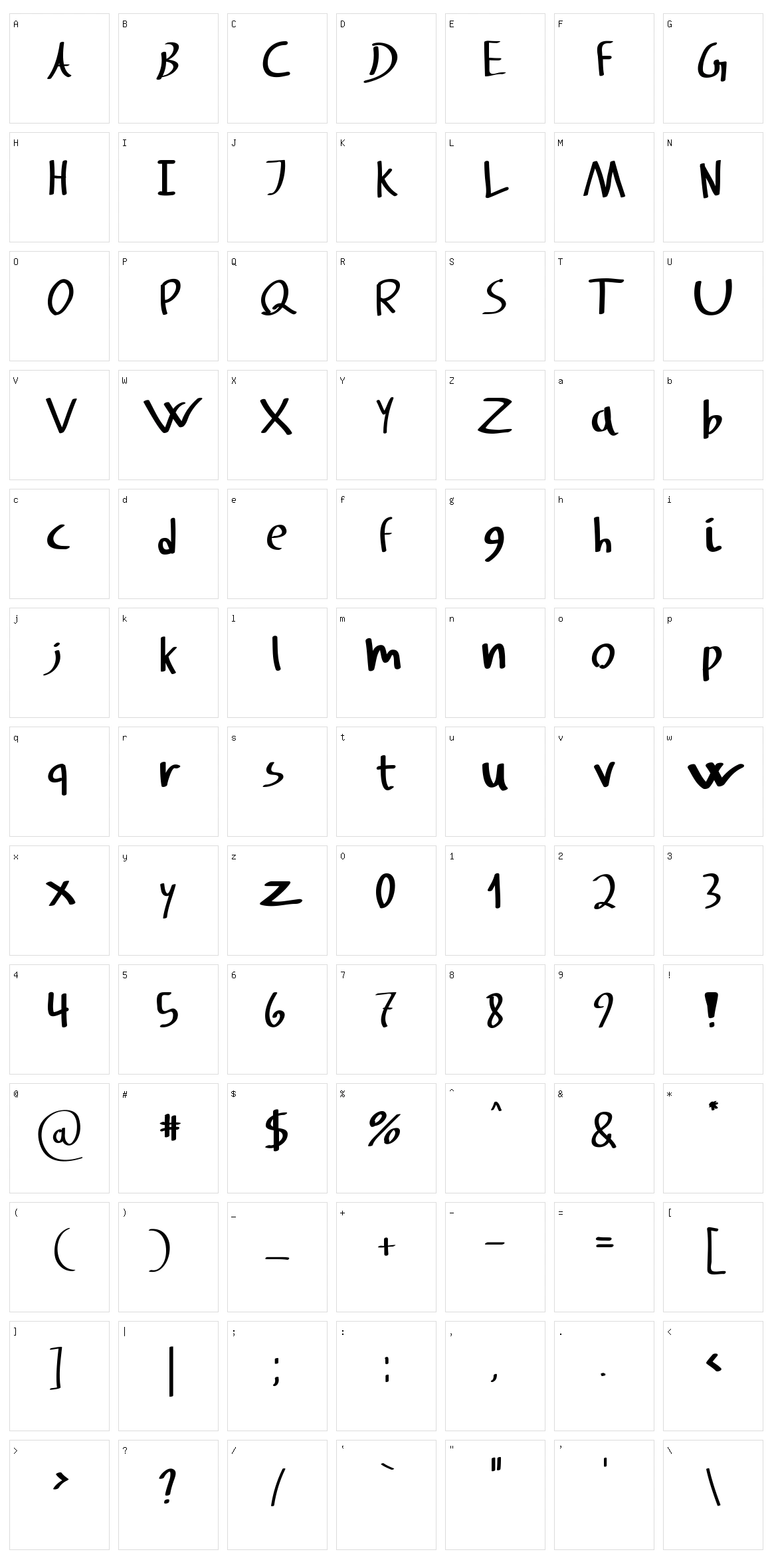
The free font Svampens Handwriting is carefully designed by Martin S?rensen, showcasing a thoughtful balance of creativity and usability and falls under the Script font style. When you download the ZIP file, it contains only 17.89 KB of font files, making it lightweight and quick to download. Please review the license details below to understand permitted usage and distribution rights. If license information is not available, we recommend using this font for personal projects only or contacting the author directly for commercial usage permissions.